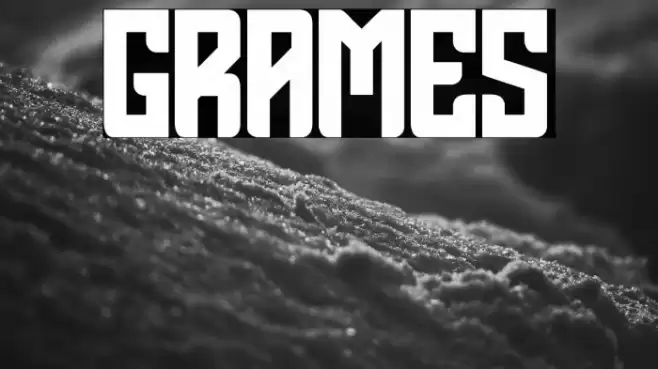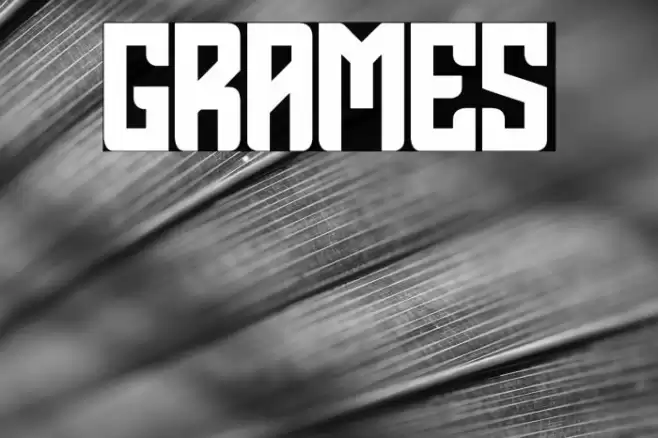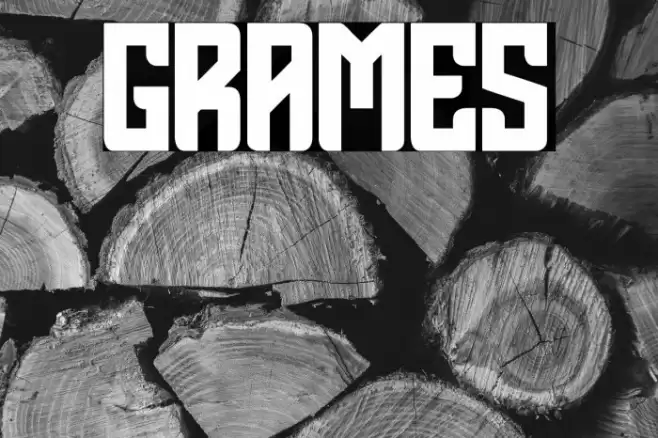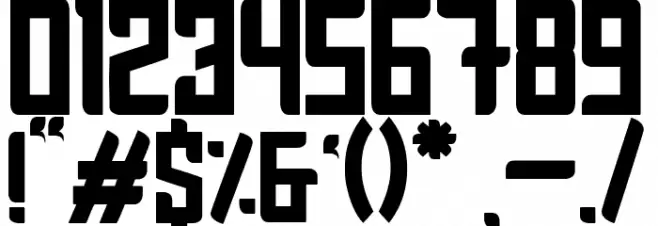
GRAMES Font
GRAMES Description
This font features a bold, geometric style with a strong presence. The characters are constructed with thick, block-like forms, giving them a robust and modern appearance. The uppercase and lowercase letters maintain a consistent width, creating a uniform look across the typeface. The numbers and special characters follow the same design principles, ensuring cohesion throughout. The angular edges and straight lines contribute to its contemporary feel, making it suitable for impactful designs. Its distinct style is ideal for projects that require a bold statement.
A bold, geometric font with a modern and robust design from Regular fonts.
- Proposed Projects: Ideal for branding, posters, headlines, and any design requiring a strong visual impact.